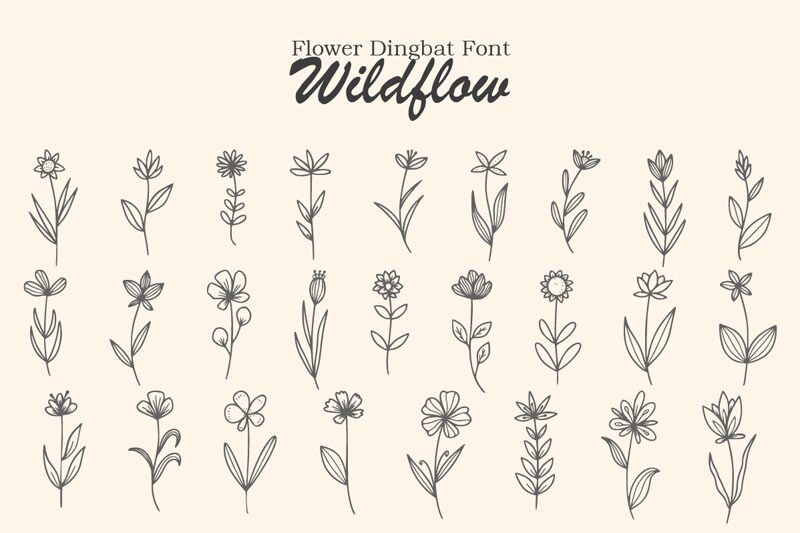
Wildflow, a creation by Muhammad Yafinuha, is a captivating dingbats font that brings the beauty of nature and floral elements to life. With its intricate designs and delicate details, this unique font is perfect for adding a touch of elegance to any project.
Whether it's creating stunning invitations for weddings or designing eye-catching packaging for organic products, Wildflow will effortlessly elevate your designs. Its versatile style also makes it ideal for crafting inspiring logos, creating whimsical greeting cards, or even embellishing social media graphics with a touch of nature's charm.